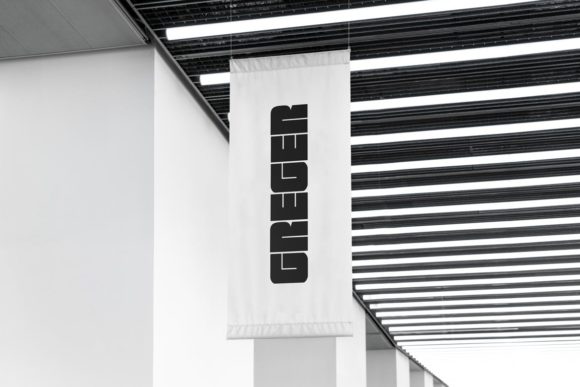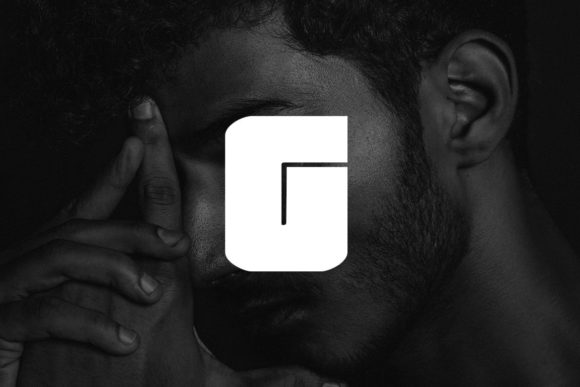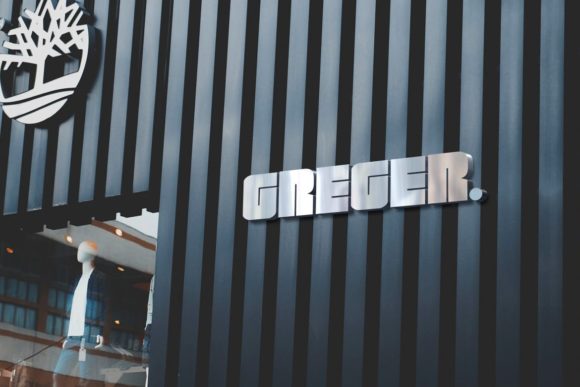
Introduction to Greger Font
Greger is a one-of-a-kind display font that is perfect for headlines & titles.
Get inspired by its modern charm .
Key Features of Greger Font
Why Choose Greger Font?
Greger Font offers exceptional quality and versatility, making it a valuable addition to your design toolkit. Whether you’re creating for personal projects or commercial use, Greger Font delivers professional results.